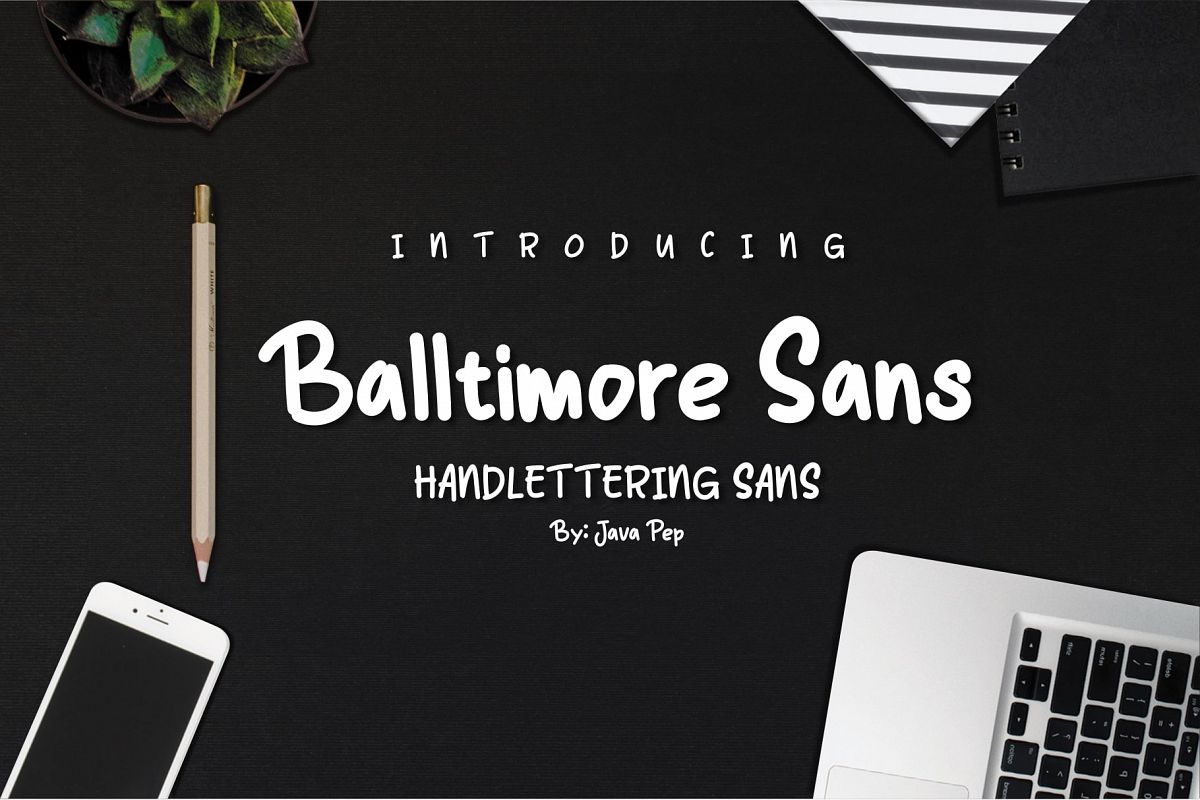
Introducing
Balltimore Sans is hand lettering sans font that made for making ends meet your DIY project so that looks more natural and catchy. This font made based on my own regular handwriting.